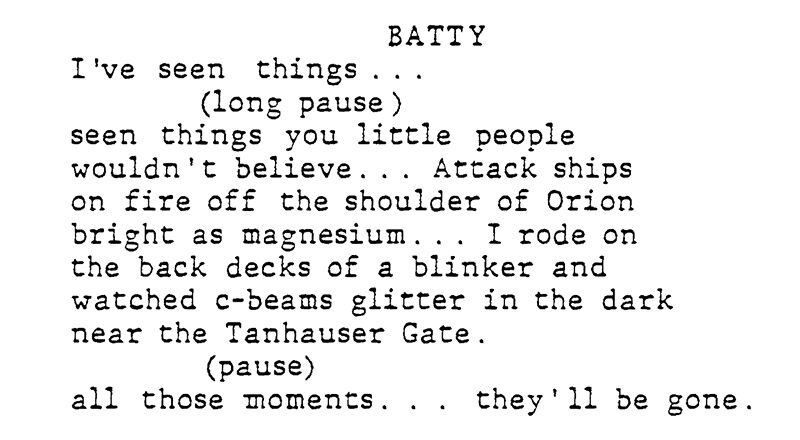
Blade Runner Screenplay font family by Gary Stephens recreates an original typing machine aesthetic. This free font family contains 2 font styles which capture the classic utilitarian style and mechanical feel of typewriter typography. Each letter is a piece of inspiration from old-fashioned impressions made using cast-metal type blocks when using a real vintage typewriter. A nostalgic feel is inevitable whether using the font by itself or mixed with other styles.
Popular use cases for this monospace font family are retro posters, movie posters, typewriter rental service branding, typewriter stores’ websites, and typewriter shops’ storefronts. Book covers and book content design for novels especially detective and horror stories presents another valuable use of these typefaces. Other popular ideas would include diary covers, paper textures, or various physical or digital paper background or texture design.
Blade Runner screenplay font is a revival of a defunct, obsolete, and unknown 1980s typewriter font made by Gary Stephens.